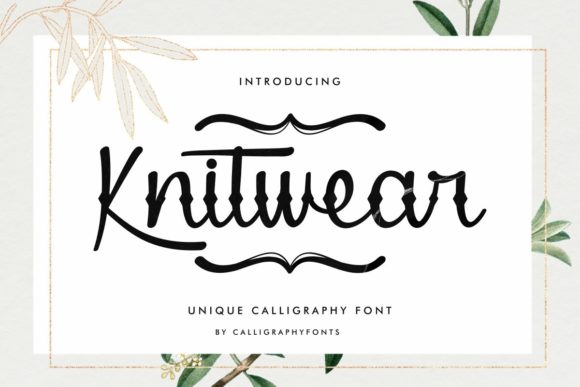
Dive into the enchanting world of Knitwear, a captivating script font family that exudes charm and playfulness. Its graceful characters dance along the baseline, adding a touch of whimsy to your school website. Knitwear belongs to the script font family, known for its flowing, handwritten style. It's meticulously crafted by CalligraphyFonts, a renowned name in the world of typography.
With Knitwear, you can effortlessly elevate the visual appeal of your school website. Its charming letters are like tiny works of art, adding a personal touch to your online presence. Knitwear is PUA encoded, making it a breeze to access all glyphs and swashes. Unleash your creativity and weave a unique visual tapestry with Knitwear.
Knitwear is more than just a font; it's an expression of creativity. It transforms your school website into a vibrant, engaging platform that captivates visitors. Its playful characters evoke a sense of joy and wonder, leaving a lasting impression on your audience. Whether you're showcasing student achievements, sharing educational resources, or promoting upcoming events, Knitwear provides the perfect backdrop for your school's online presence.
In the realm of education, Knitwear shines as a beacon of creativity and innovation. Its playful charm creates a welcoming atmosphere, encouraging students to explore and engage with your website. Whether it's a science fair project, a history assignment, or an art portfolio, Knitwear adds a touch of magic to every page.
So, embark on a typographic adventure with Knitwear and transform your school website into a captivating online oasis. Let the enchanting characters of Knitwear weave their magic, creating an unforgettable experience for your visitors.